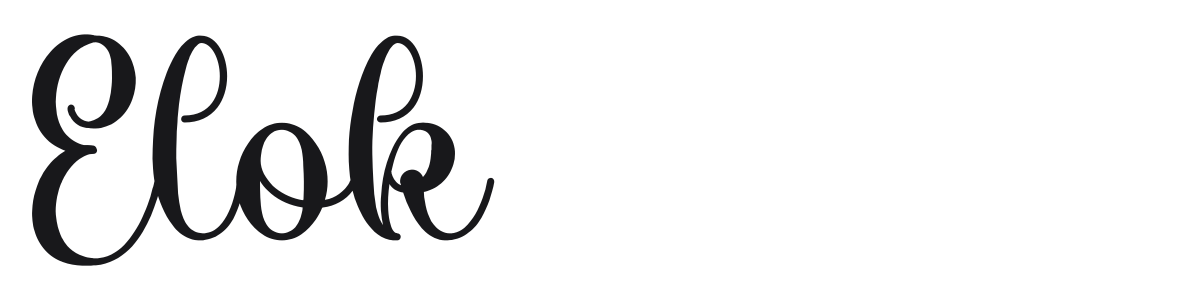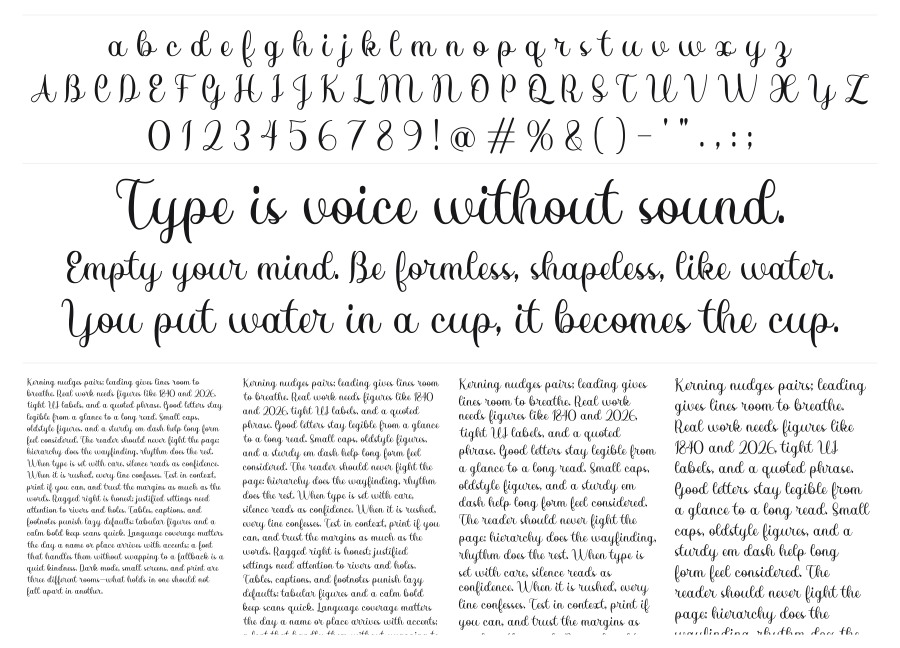
Elok
Elok is a lively casual script from Doehantz Studio with flowing connected strokes and expressive looping ascenders. It sits comfortably between informal handwriting and polished calligraphy, giving designs a warm, approachable personality. Strong in branding, packaging, and anywhere a touch of romantic energy is needed.